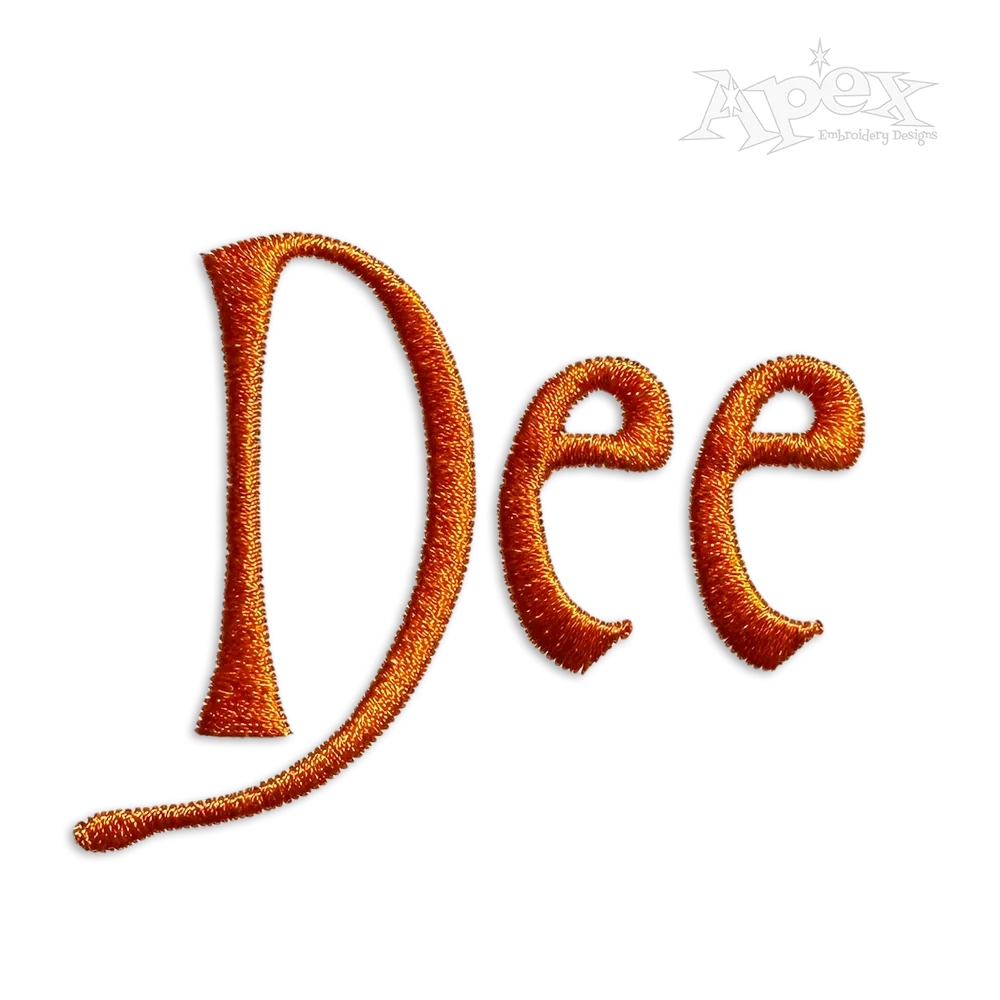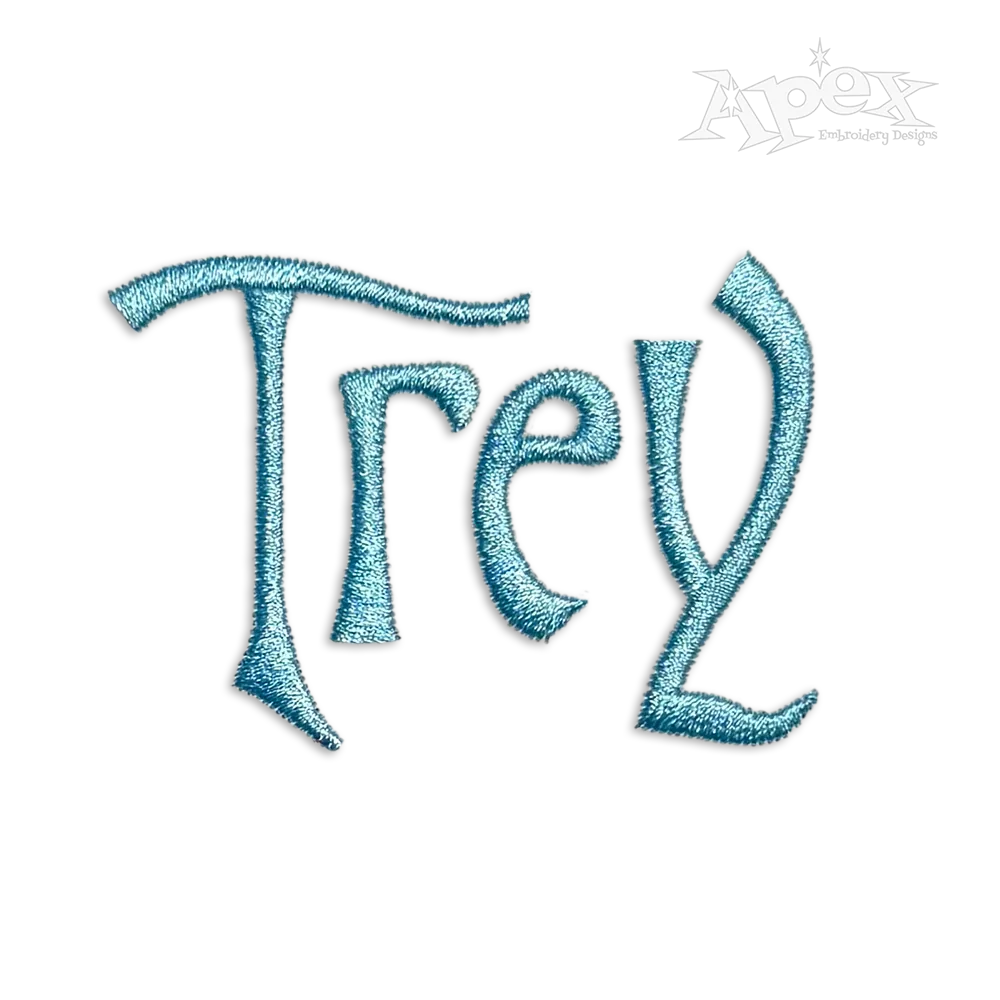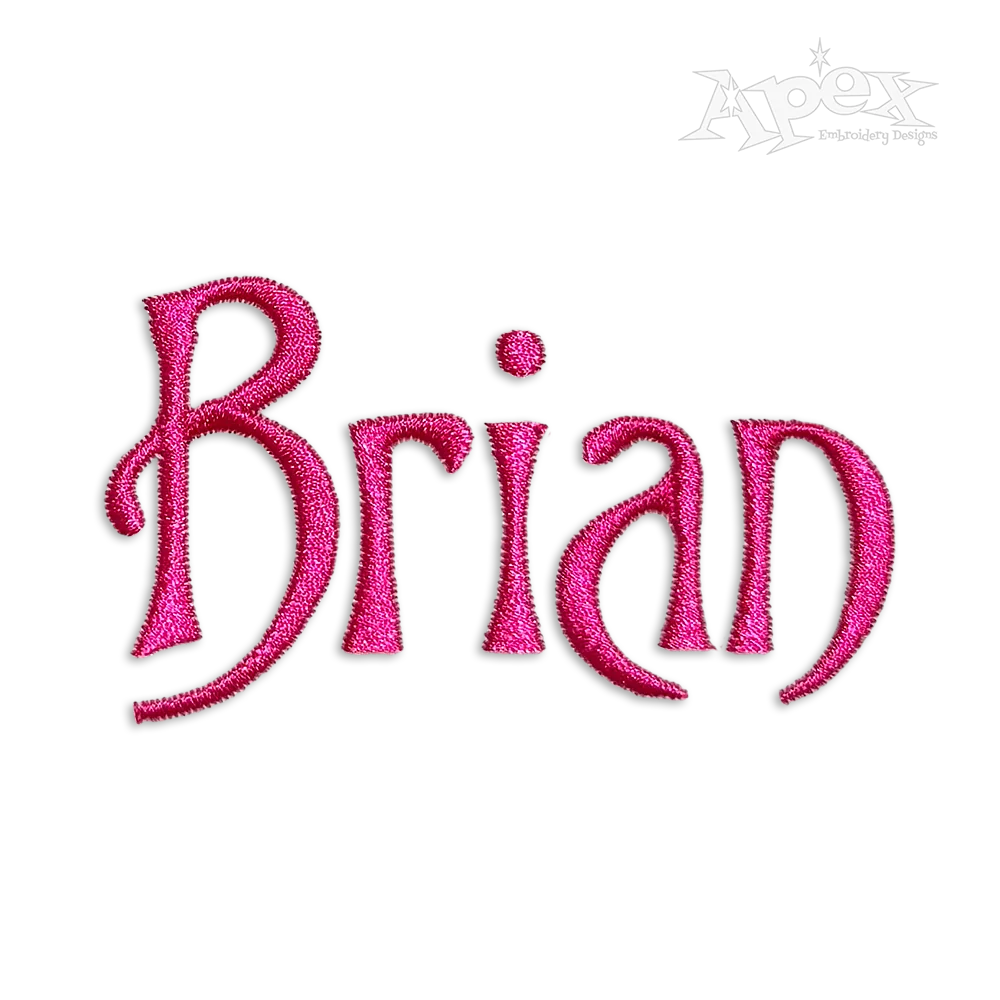
Nightmare Christmas Embroidery Font
Born from the mischievous intersection of moonlit autumn mystery and twisted holiday delight, the Nightmare Christmas Embroidery Font brings a deliciously eccentric charm to your embroidery hoop. When digitizing these playfully eerie letterforms, our focus was on capturing the elongated curves, spindly serifs, and theatrical silhouettes of whimsical dark fantasy without sacrificing the lustrous, velvety stitch quality that elevates artisanal needlework. Each glyph is crafted with an expressive energy that feels alive—dancing between quirky humor and gothic elegance, perfect for makers who celebrate the holidays with a delightfully unconventional spirit.
Project Ideas for Nightmare Christmas Embroidery Font
- Whimsical Holiday Stockings: Personalize rich velvet, burlap, or buffalo-check stocking cuffs with gothic names that stand out by the fireside.
- Halloween & Christmas Loungewear: Embroider cheeky holiday monograms onto cozy flannel pajamas, oversized fleece sweatshirts, and relaxed hoodies.
- Bespoke Gifting & Trick-or-Treat Totes: Stitch personalized trick-or-treat bags, holiday treat sacks, and reusable canvas shopping totes with quirky seasonal phrases.
- Dark Academia Table Linens: Elevate charcoal or deep plum linen napkins and runners for subversive holiday dinner parties and themed banquets.
- Quirky Tree Skirts & Pillows: Create one-of-a-kind statement home accents featuring bold seasonal typography that bridges spooky season and the winter holidays.
The tall, spirited anatomy of these letters makes placement both fun and versatile. For stocking cuffs and tote bag bands, center-align names to let the dynamic height variations of the letters create an organic, bouncy baseline. On sweatshirts and denim jackets, the 3-inch set delivers maximum visual impact when arched or set straight across the mid-chest. If you are embroidering flannel button-downs or knit beanies, the 2-inch glyphs tuck beautifully above chest pockets or right along the brim fold. For table linens, try an angled corner diagonal placement approximately three inches from the point for an unexpected, modern artisan look.
Nightmare Christmas Embroidery Font Craft & Letterform Details
Digitizing exaggerated gothic typography requires an obsessive balance of stitch density and structural support. Because the letterforms feature dramatic transitions—sweeping from needle-thin points to wide, plump swells—each segment uses custom-tailored variable pull compensation. This ensures your stitch-outs maintain their crisp, slender peaks without narrowing into thread breaks or buckling delicate textiles.
We have carefully calibrated the satin stitch directions to follow the playful twists and bends of each contour, catching ambient light from multiple angles to create an alluring tactile luster. Beneath the surface, travel runs and foundational underlay stitches are mapped to lock down plush fabrics like fleece and velvet while minimizing jump stitches, delivering a silky, professional finish worthy of your finest custom creations.